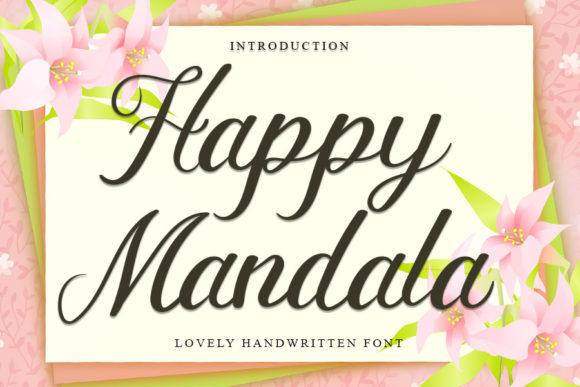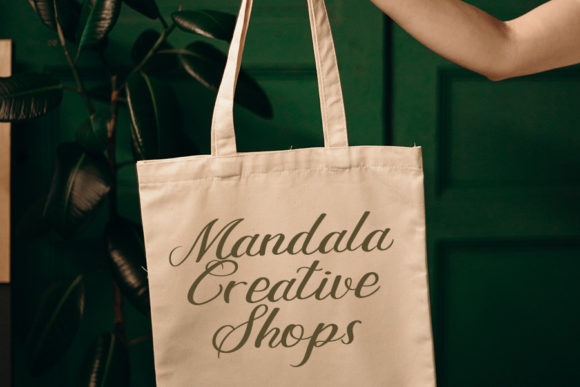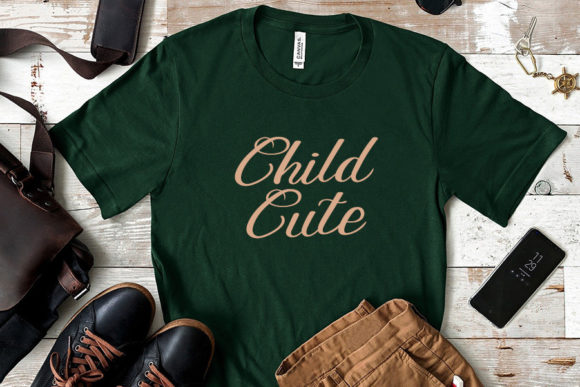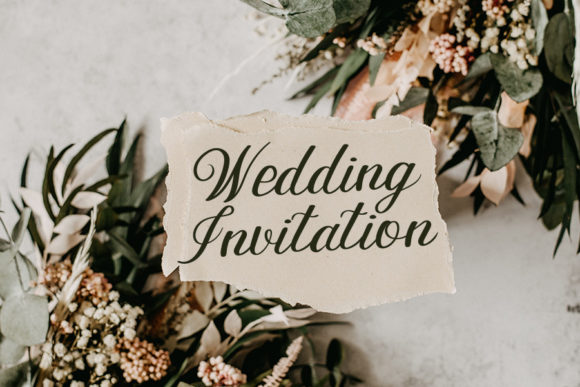
Happy Mandala Font
About Happy Mandala Font
Happy Mandala is a chic, refined script font that emanates sophistication and elegance. Its stylish alternates and ligatures make this font the perfect match for any project.